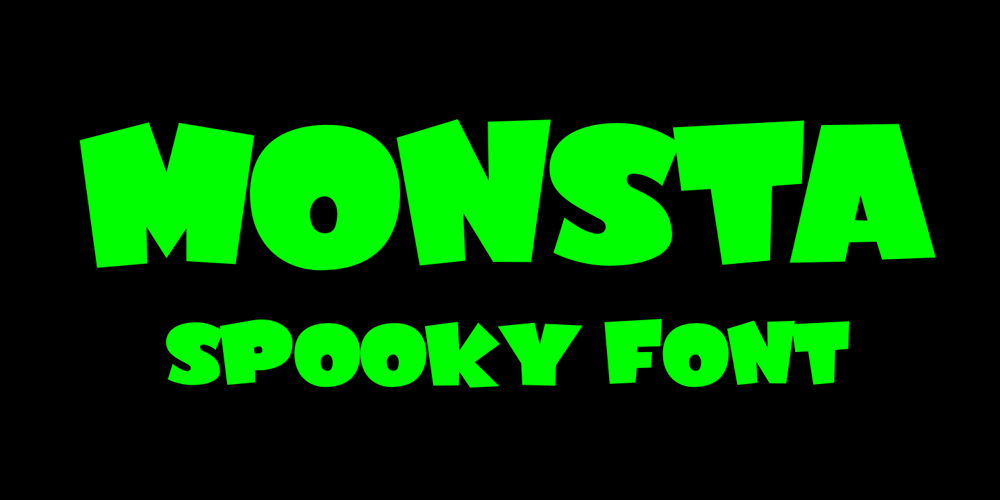
Monsta Font Family was designed by Arief Rochman and published by 4RM Font. Monsta contains 2 styles and family package options. Monsta font is made with a certain form of emphasis on glances so that it seems fun and scary and also gives a cheerful theatrical atmosphere. suitable for use in graphic designs such as posters, logos, covers, and others.